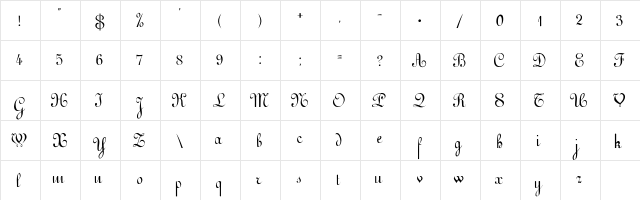
Gessele-Script Regular
Design Context for Gessele-Script Typeface
Gessele-Script flows with the natural rhythm of handwritten lettering, making it ideal for designs that call for warmth and personal expression.
Font Pairing: Combine Gessele-Script with a simple geometric sans for maximum contrast — the tension between flowing curves and clean structure is a classic typographic pairing.
Pro Tip: Pair Gessele-Script with a clean sans-serif for supporting text. The contrast between fluid script and geometric structure creates an elegant typographic hierarchy.